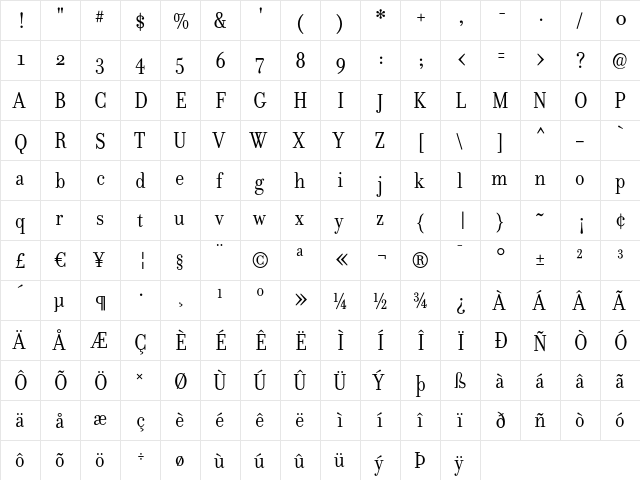
DonatoraOSF Regular
Design Context for DonatoraOSF Typeface
DonatoraOSF is a composed and adaptable typeface that performs quietly and consistently across a wide range of design contexts.
Pro Tip: Pair DonatoraOSF with a font of contrasting weight or personality to build a more expressive typographic hierarchy.